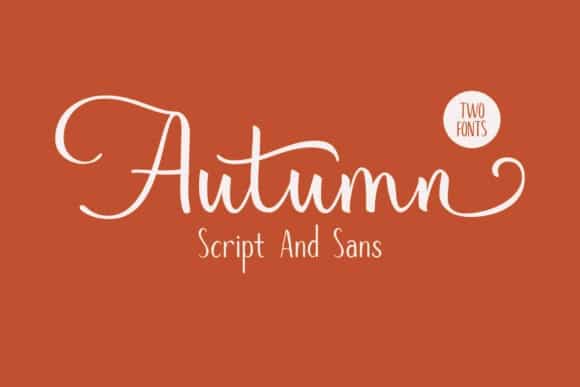
Autumn Mood is a font work that is entirely handwritten. It is a stylish, graceful, and contemporary looking font that can be used for logos, branding, invitations, wedding designs.